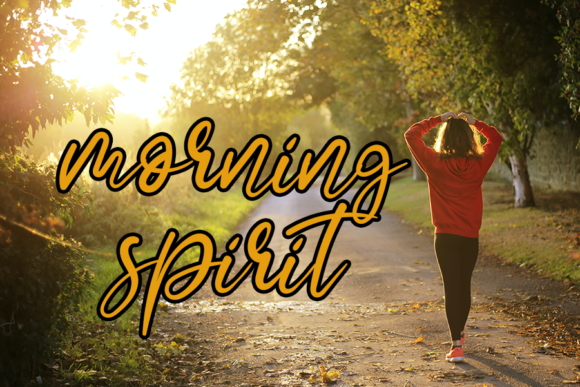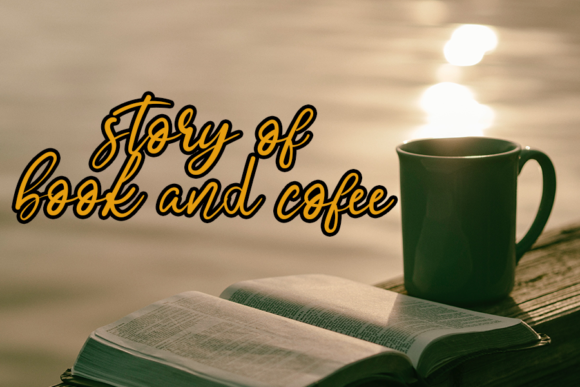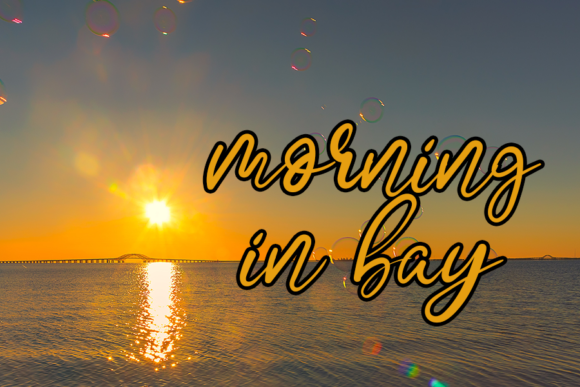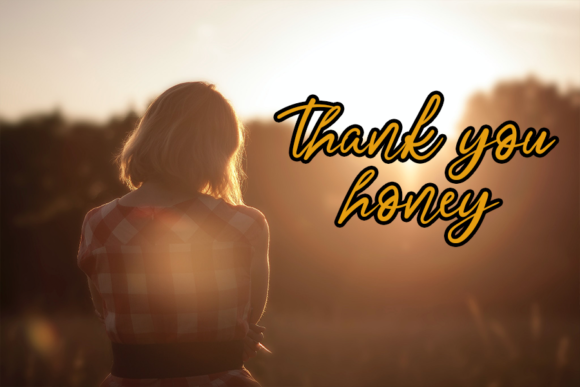
Introducing Believe Morning Font: The Sweet and Cursive Handwritten Font for Your Design Needs
Are you a designer or crafter looking for a font that can add a touch of sweetness and elegance to your designs? Look no further than Believe Morning Font, a beautiful and cursive handwritten font that is perfect for a variety of design ideas. In this article, we’ll take a closer look at the features and benefits of Believe Morning Font, and explore how it can elevate your designs to the next level.
A Sweet and Cursive Handwritten Font
Believe Morning Font is a sweet and cursive handwritten font that is designed to add a personal touch to your designs. Its gentle and flowing curves make it perfect for creating beautiful and eye-catching designs that are sure to capture the attention of your audience. Whether you’re designing a logo, a poster, or a social media graphic, Believe Morning Font is the perfect choice.
Perfect for a Variety of Design Ideas
Believe Morning Font is a versatile font that can be used for a wide range of design ideas. Its sweet and cursive style makes it perfect for:
- Wedding designs, such as invitations, programs, and stationery
- Children’s designs, such as books, posters, and activity sheets
- Social media graphics, such as quotes, posters, and ads
- Branding and packaging designs, such as logos, labels, and packaging
Why Choose Believe Morning Font?
- Unique and eye-catching: Believe Morning Font is a unique and eye-catching font that is sure to capture the attention of your audience.
- Versatile: Believe Morning Font can be used for a wide range of design ideas, making it a great addition to any designer’s toolkit.
- High-quality: Believe Morning Font is a high-quality font that is designed to deliver beautiful and professional-looking results.
Tips for Using Believe Morning Font
Here are a few tips for using Believe Morning Font in your designs:
- Pair it with a bold font: Believe Morning Font is a delicate font, so pairing it with a bold font can create a beautiful contrast.
- Use it for headings: Believe Morning Font is perfect for headings and titles, where its sweet and cursive style can really shine.
- Experiment with colors: Believe Morning Font looks great in a variety of colors, so don’t be afraid to experiment and find the perfect color for your design.
In conclusion, Believe Morning Font is a beautiful and versatile font that is perfect for designers and crafters who are looking for a sweet and cursive handwritten font. With its PUA encoding and easy-to-use design, Believe Morning Font is a great addition to any designer’s toolkit. Whether you’re designing a logo, a poster, or a social media graphic, Believe Morning Font is sure to deliver beautiful and professional-looking results.